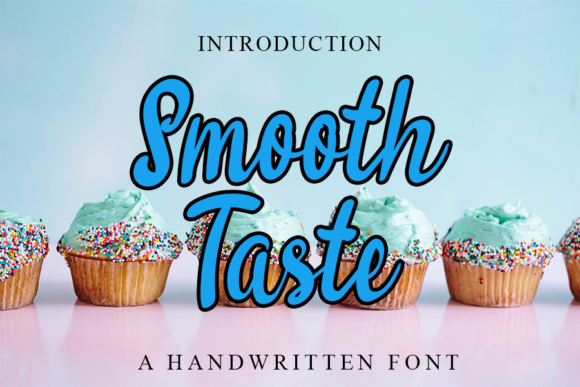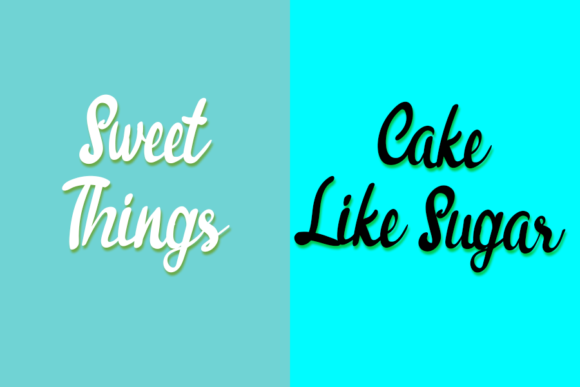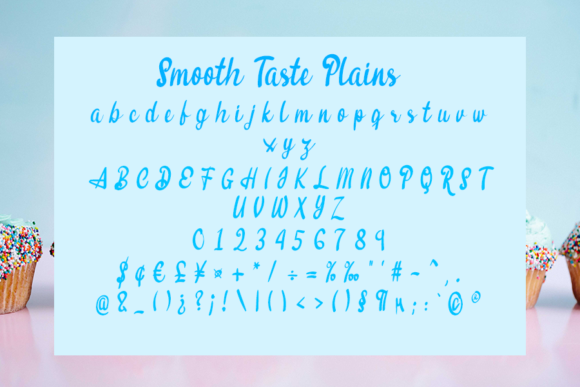
Smooth Taste Font
About Smooth Taste Font
Smooth Taste is a dainty and fun handwritten font. With a nostalgic feel and an elegant style, this typeface is perfect for book titles, romantic movies, cover magazines, and more!